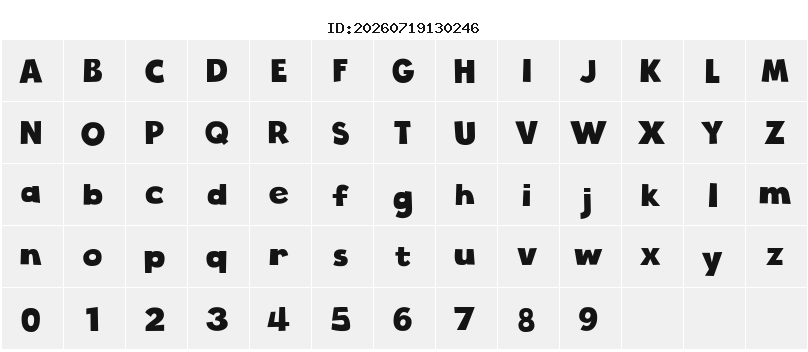
• Font Name: Cloudy With a Chance of Love
• Full Font Name: Cloudy With a Chance of Love
About Cloudy With a Chance of Love.ttf
Cloudy With a Chance of Love.ttf is a modern, elegant sans-serif font designed for ultimate readability and visual harmony. Perfect for branding, headlines, web design, and print materials.